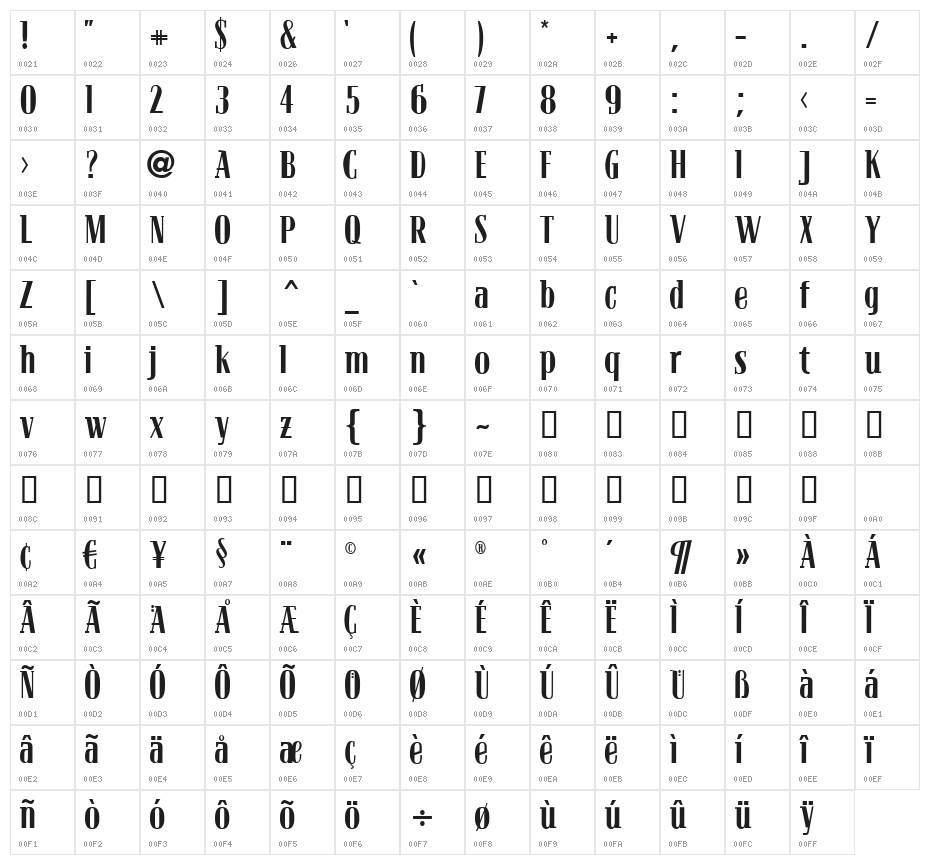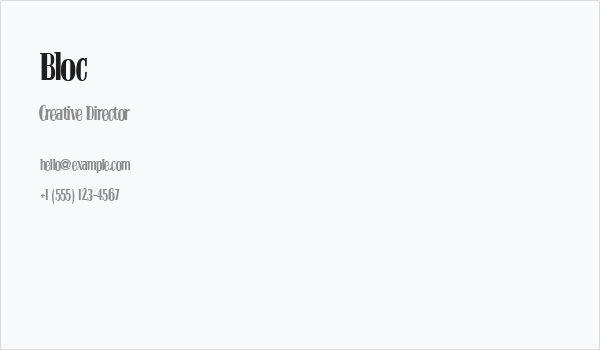
Bloc Font
Bloc Description
This font features a bold and impactful design, characterized by its tall, narrow letterforms and high contrast between thick and thin strokes. The uppercase letters exhibit a strong vertical emphasis, while the lowercase letters maintain a consistent style with slightly rounded edges. The numerals are equally bold, ensuring visibility and readability. Special characters are designed to complement the overall aesthetic, making this font suitable for attention-grabbing headlines and titles. Its unique style combines elements of both modern and vintage typography, offering versatility in various design contexts.
| Overall Style | Modern Vintage |
| Proposed Projects | Ideal for posters, magazine covers, branding projects, and any design requiring a strong visual impact. |